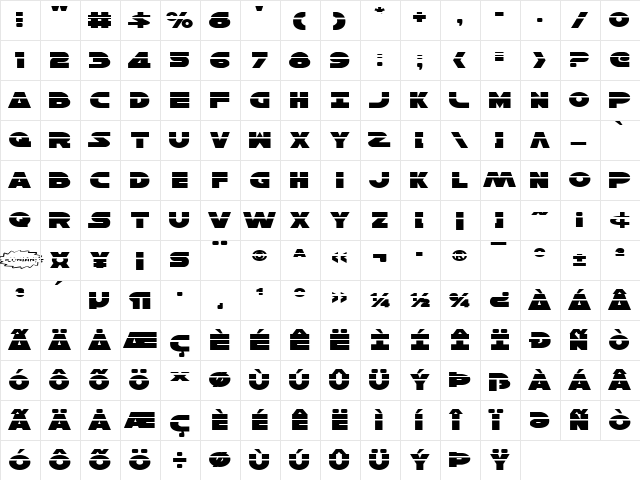
Han Solo Expanded Laser Expanded Laser
Design Context for Han Solo Expanded Laser Typeface
Han Solo Expanded Laser is a composed and adaptable typeface that performs quietly and consistently across a wide range of design contexts.
Pro Tip: Use Han Solo Expanded Laser in both headline and body roles to test its range before committing to a single application.